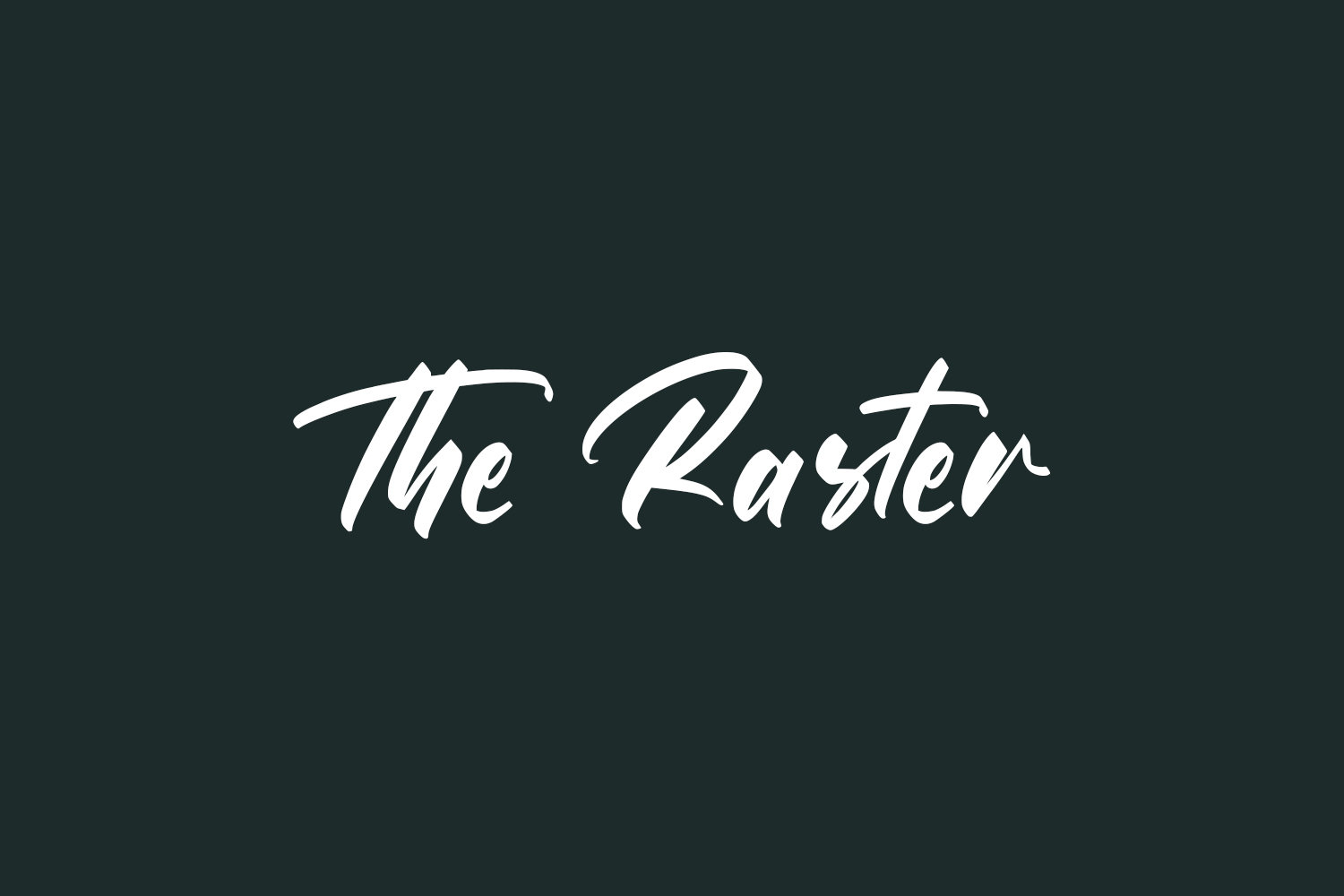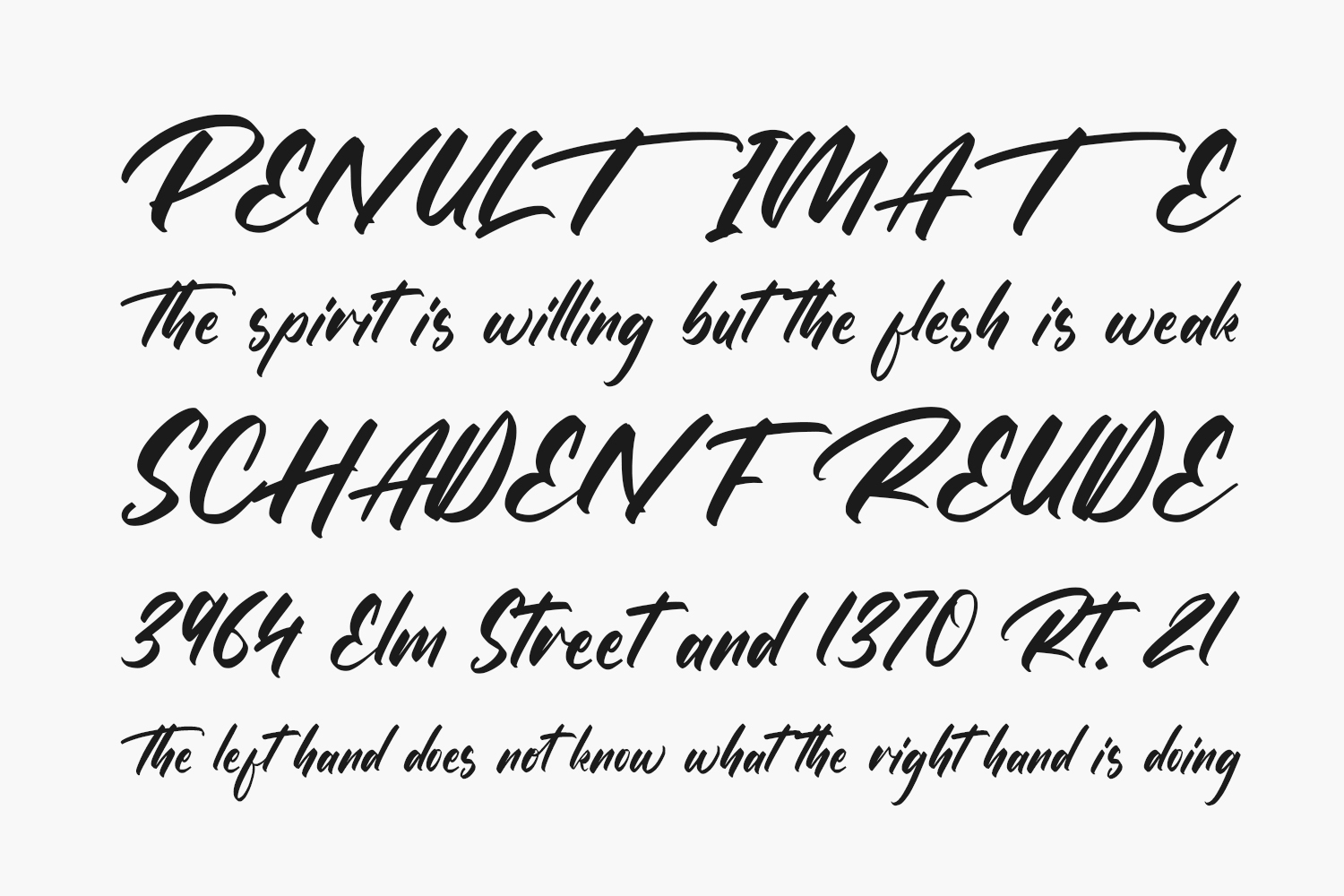
The Raster Free Font is a beautiful light handwritten font with a unique feel and a stunning impact. It will add a luxury spark to any design project that you wish to create. The Raster Free Font was designed by FatmaStudio and is free for personal use only. Please purchase the full version for commercial use.